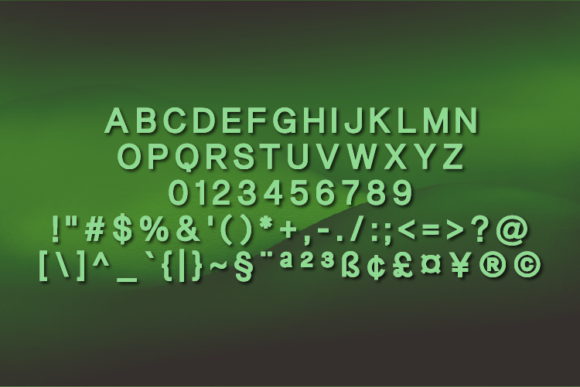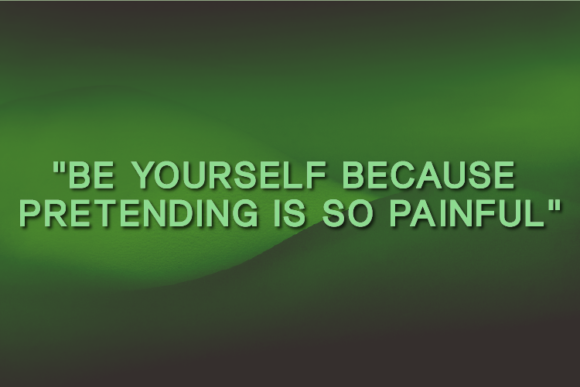
Introduction to Podache Font
Podache is a minimal, yet elegant sans serif font.
Suitable to a wide variety of designs due to its neat and simple style, this font has the potential to become your favorite go-to font, no matter the occasion .
Key Features of Podache Font
Why Choose Podache Font?
Podache Font offers exceptional quality and versatility, making it a valuable addition to your design toolkit. Whether you’re creating for personal projects or commercial use, Podache Font delivers professional results.